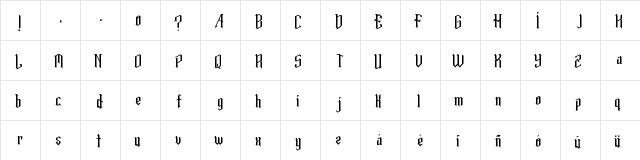
Pasi??a Regular
| Designer | Juan Casco |
Design Context for Pasi󮠇󴩣??a Typeface
Pasi󮠇󴩣??a is a composed and adaptable typeface that performs quietly and consistently across a wide range of design contexts.